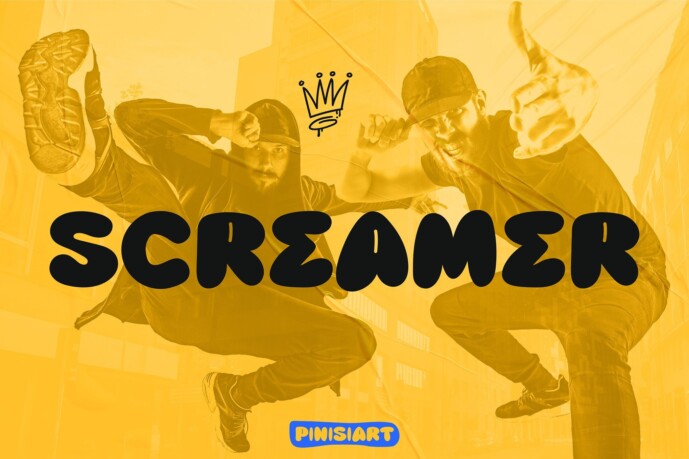
Screamer Font
Designer: pinisiart
Screamer is a bold, high-impact graffiti font that captures the raw energy and rebellious attitude of street culture. Designed with thick, expressive strokes and rugged edges, this typeface delivers an authentic urban vibe, perfect for projects that demand edge, movement, and attitude.
Whether you’re working on streetwear branding, hip-hop posters, skateboarding events, or bold social media content, Screamer ensures your message stands out loud and clear.